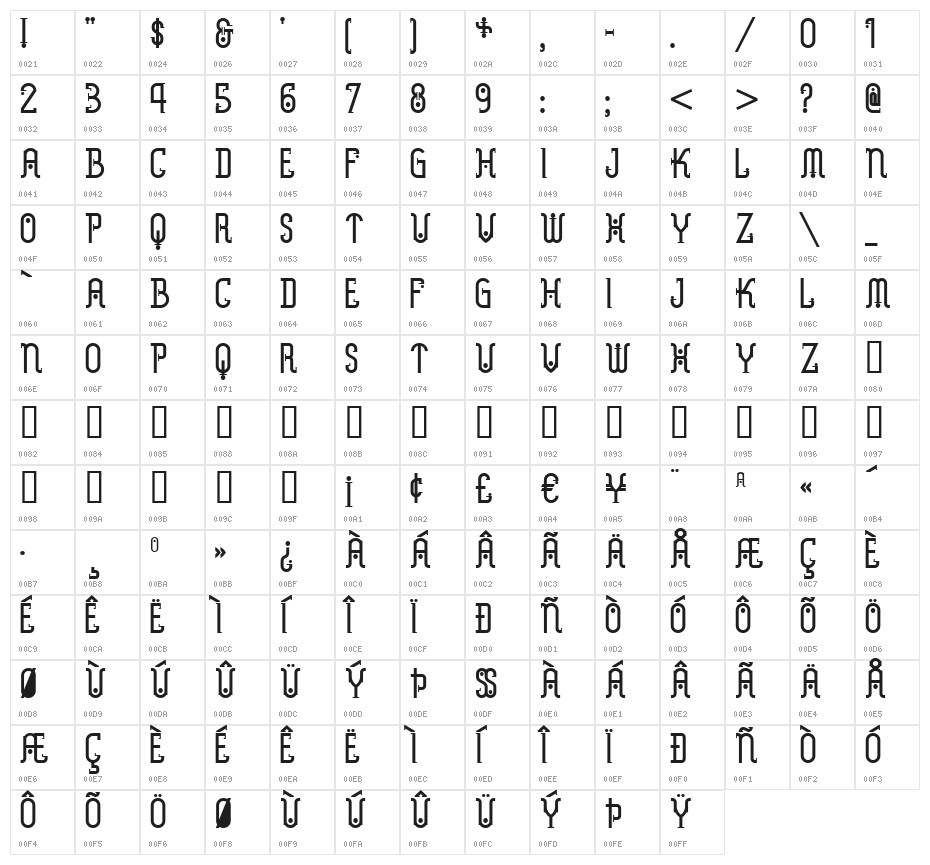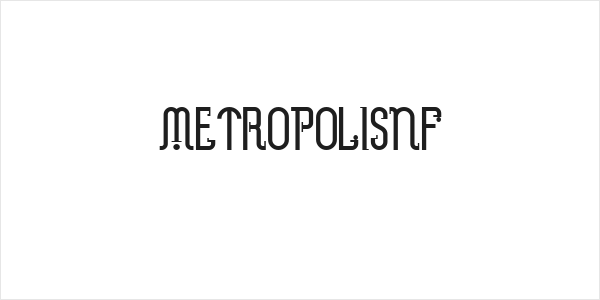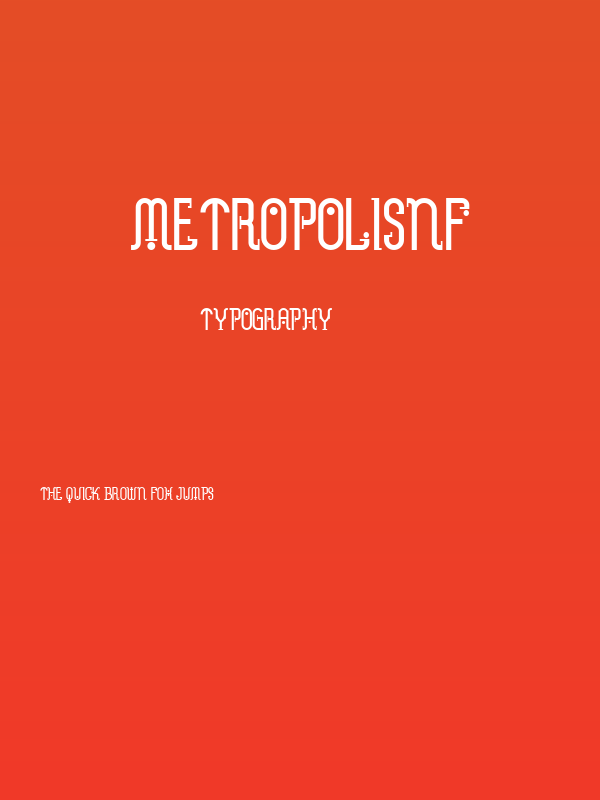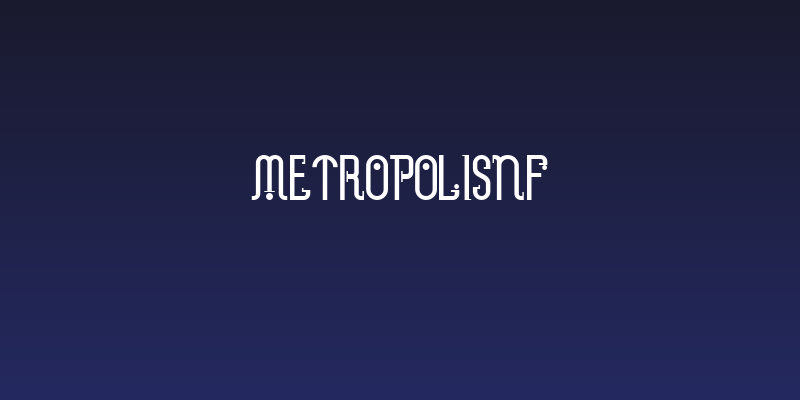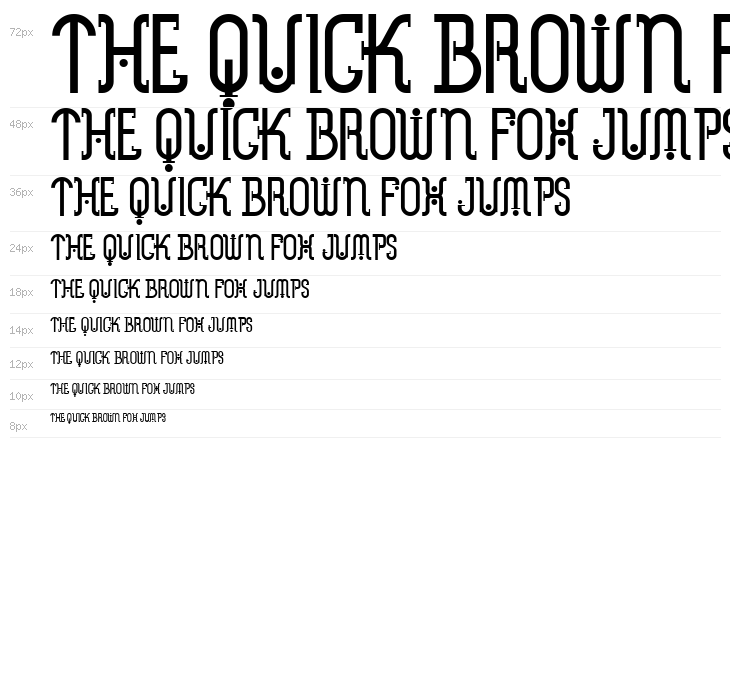
MetropolisNF Font
MetropolisNF Description
This font features a unique and decorative style with a modern twist. The characters are bold and have a distinct geometric structure, incorporating circular and angular elements that create a futuristic and artistic appearance. The uppercase letters are particularly striking, with embellishments that add a sense of elegance and sophistication. The numbers and special characters maintain the same decorative theme, ensuring consistency throughout the font. The overall design is eye-catching and suitable for projects that require a strong visual impact.
| Proposed Projects | Ideal for posters, branding, and editorial design where a modern and artistic flair is desired. |